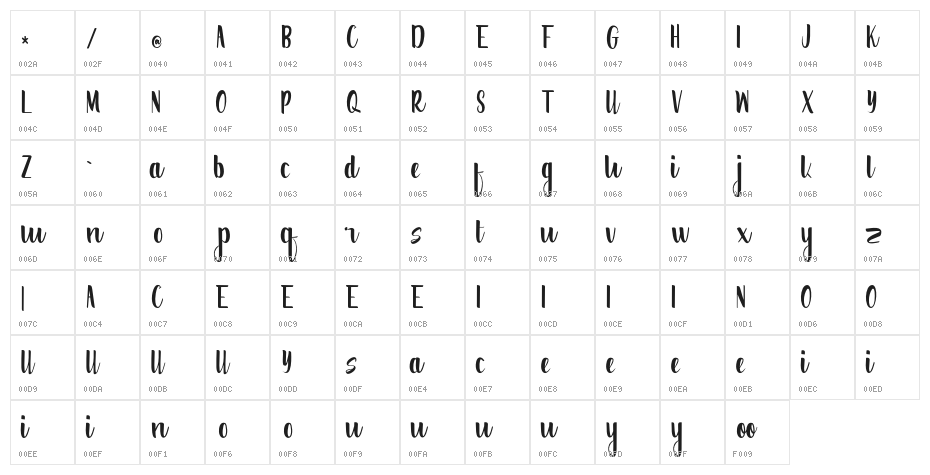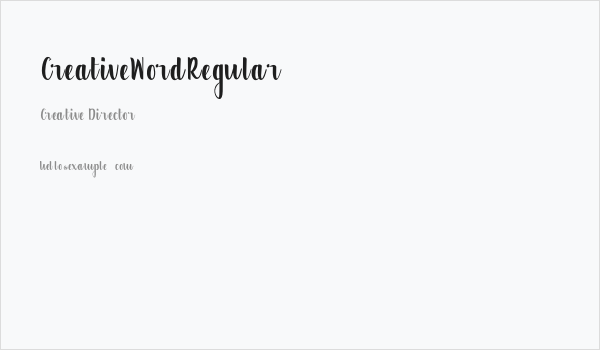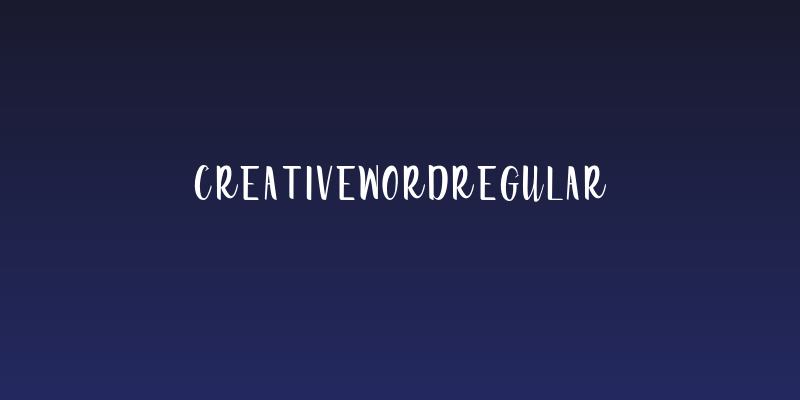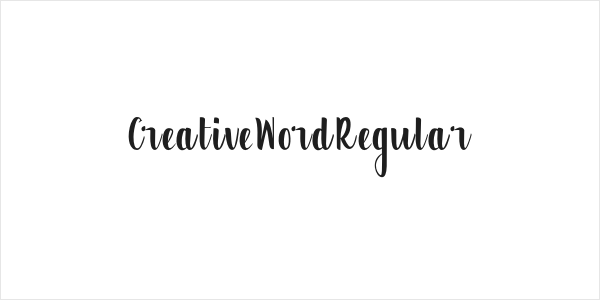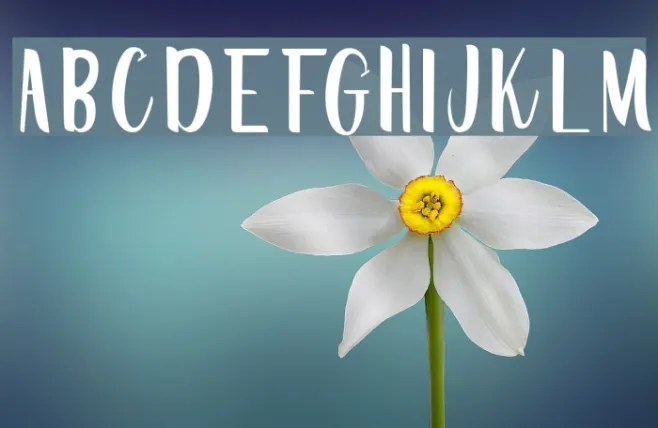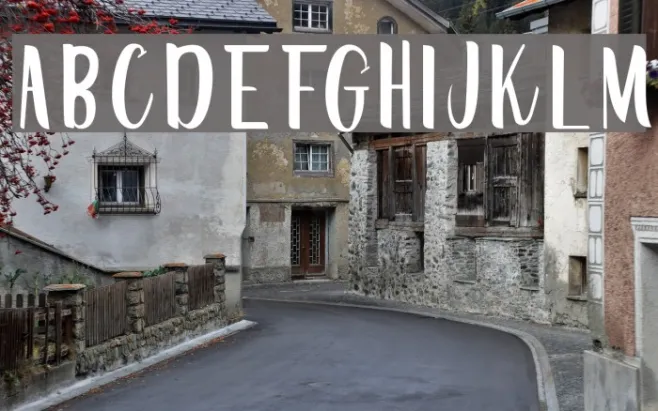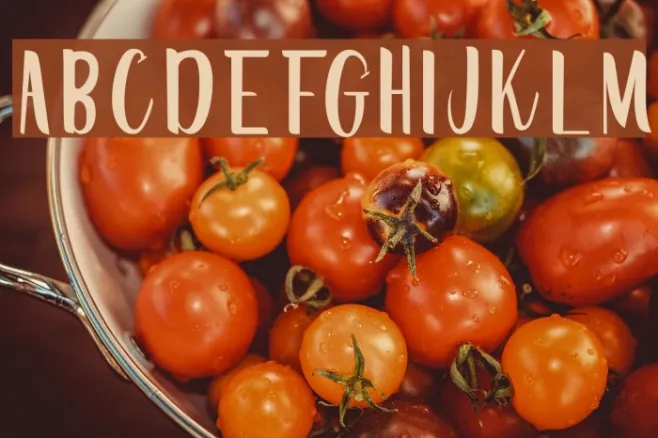
CreativeWordRegular Font
CreativeWordRegular Description
This font features a playful and artistic style, combining elements of both script and sans-serif characteristics. The uppercase letters are bold and slightly condensed, with a whimsical flair that adds a sense of movement and creativity. The lowercase letters maintain a consistent flow, with some characters exhibiting unique loops and swirls, enhancing the font's artistic appeal. The numbers are clear and legible, while the special characters integrate seamlessly with the overall design. This font's distinctive style makes it suitable for projects that require a touch of creativity and elegance.
One Design - Toni Setiawan - one-graphics.blogspot.com
| Overall Style | Modern, Artistic |
| Proposed Projects | Ideal for creative projects, branding, invitations, and artistic designs. |